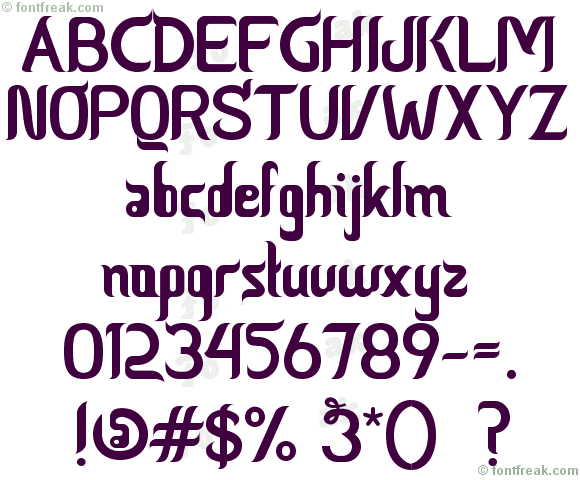
CeriaLebaran
CeriaLebaran is a unique decorative font designed by Adien Gunarta, available under a freeware license. This font falls into the category of display typefaces, characterized by its playful and whimsical design. The visual characteristics of CeriaLebaran are striking, featuring bold strokes with a lively rhythm that captivates the viewer. The letters exhibit a moderate contrast in stroke weight, enhancing readability while maintaining an artistic flair. The spacing between characters is thoughtfully designed to ensure clarity, making it suitable for various applications.
This font shines in specific use cases where creativity is paramount. It is ideal for wedding invitations, where its charming style can evoke a sense of joy and celebration. Additionally, CeriaLebaran works beautifully for movie posters, providing a striking visual element that draws attention. Restaurant menus can also benefit from this font, adding a touch of personality that complements a vibrant dining experience. Moreover, content creators will find it useful for social media graphics, allowing them to craft engaging posts that stand out in crowded feeds.
Targeting graphic designers, small business owners, and content creators, CeriaLebaran offers a versatile solution for those looking to infuse their projects with character and charm. Its distinct style appeals to anyone aiming to capture an audience's attention while conveying a specific mood or theme.